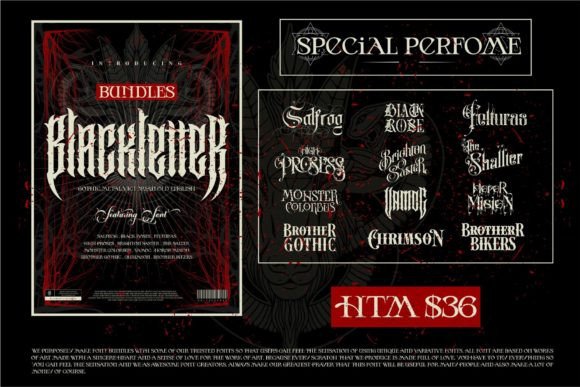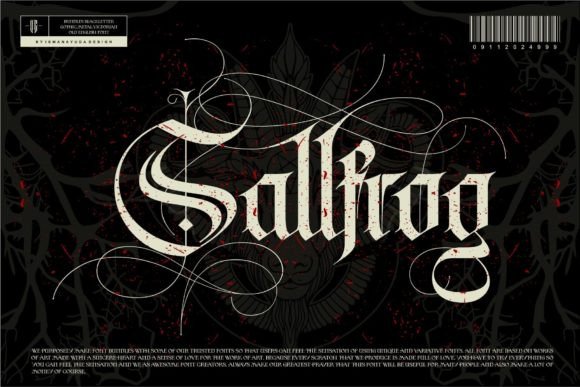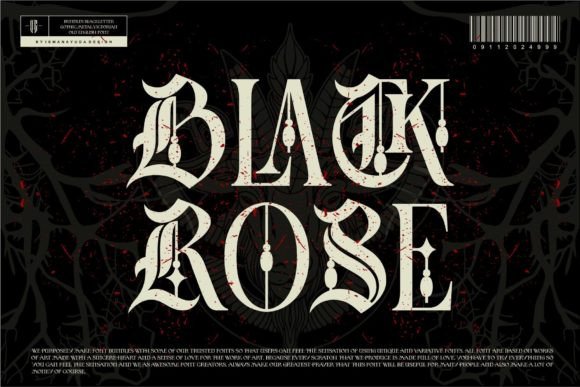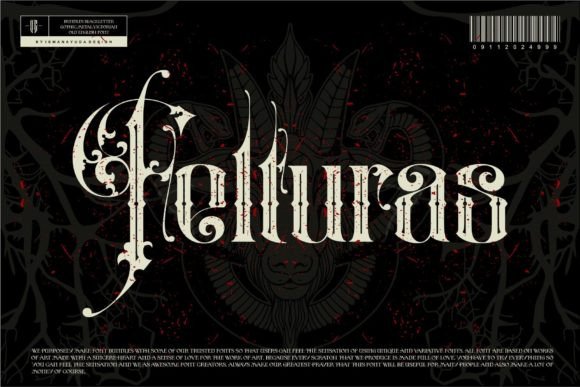
Bundles Blackletter Font
About the Bundles Blackletter Font
Meet Bundles Blackletter Font, a stunning font that brings a touch of elegance and professionalism to any design. This 12-font bundle offers a mix of bold and classic blackletter styles, including Victorian Blackletter, Metal Fonts, Gothic Fonts, and Old English. These fonts have a vintage, dramatic look, perfect for creating strong, old-fashioned designs with a dark, elegant touch.
Bundles Blackletter excels in headline treatments, short impactful phrases, logos, and packaging design where its bold, dramatic presence commands attention. It’s ideal for brands projecting a vintage, sophisticated, or even slightly rebellious image. Avoid using it for body text or lengthy content; its highly decorative nature hinders readability in extended passages.
Pairing Bundles Blackletter with a clean sans-serif like Helvetica Neue for body copy creates a strong contrast, balancing the font’s ornate character with modern clarity. Alternatively, a classic serif like Garamond offers a more traditional, elegant pairing, enhancing the vintage feel. Avoid pairing it with other highly decorative or overly stylistic fonts.
The overall personality is bold, classic, and dramatic, lending itself to projects requiring a strong visual statement. Its vintage aesthetic is best suited for brands seeking a timeless, slightly edgy feel.
Bundles Blackletter Font Usage Examples
Bundles Blackletter Font Example